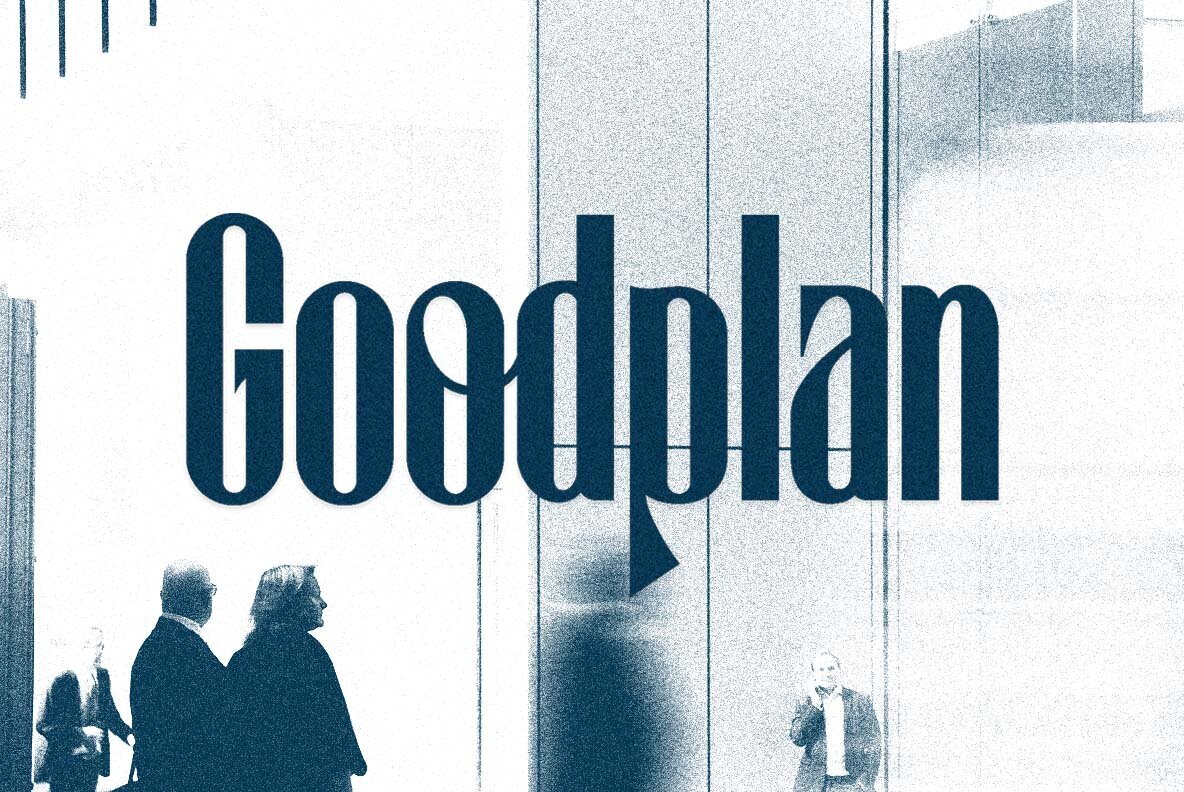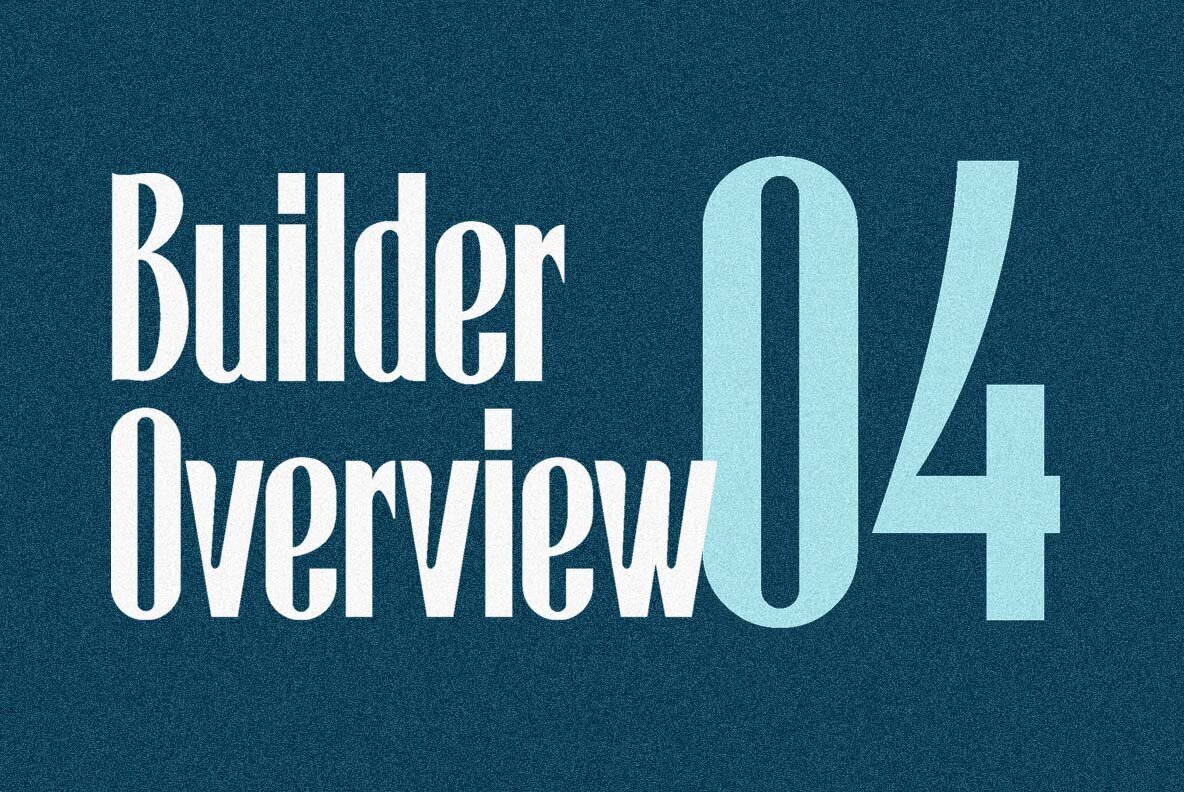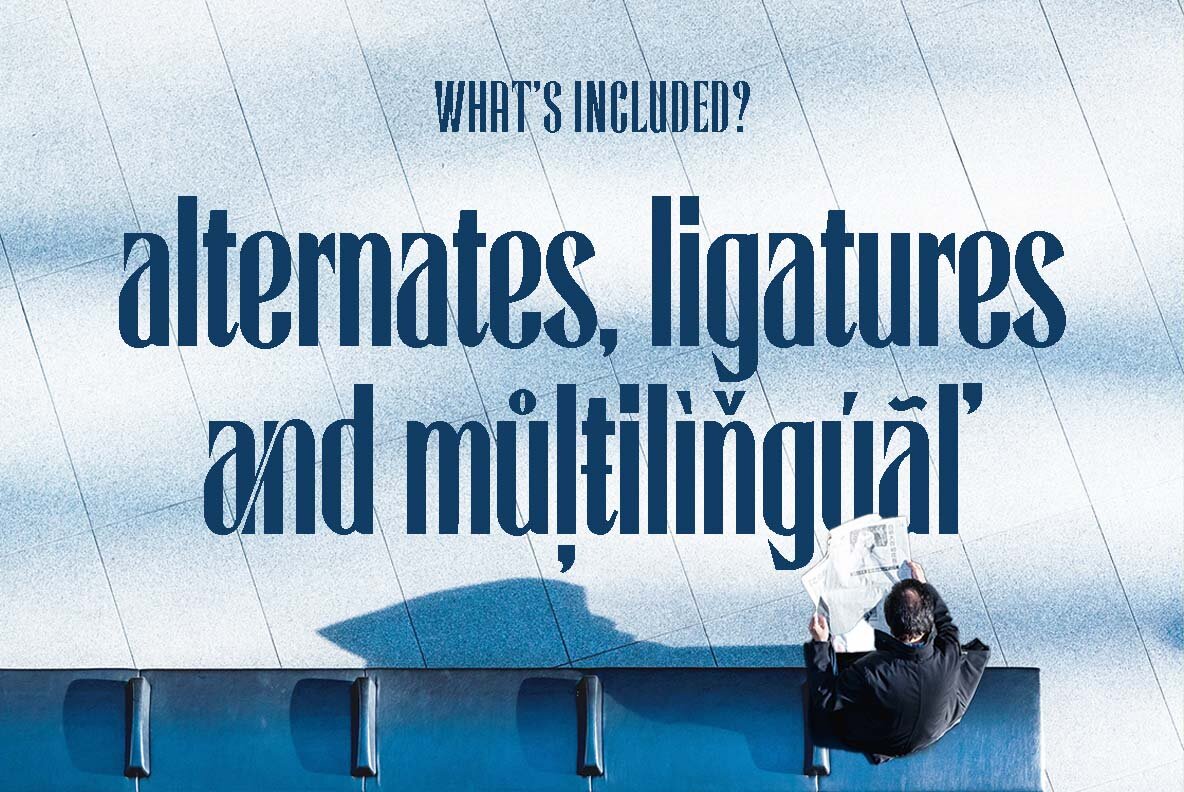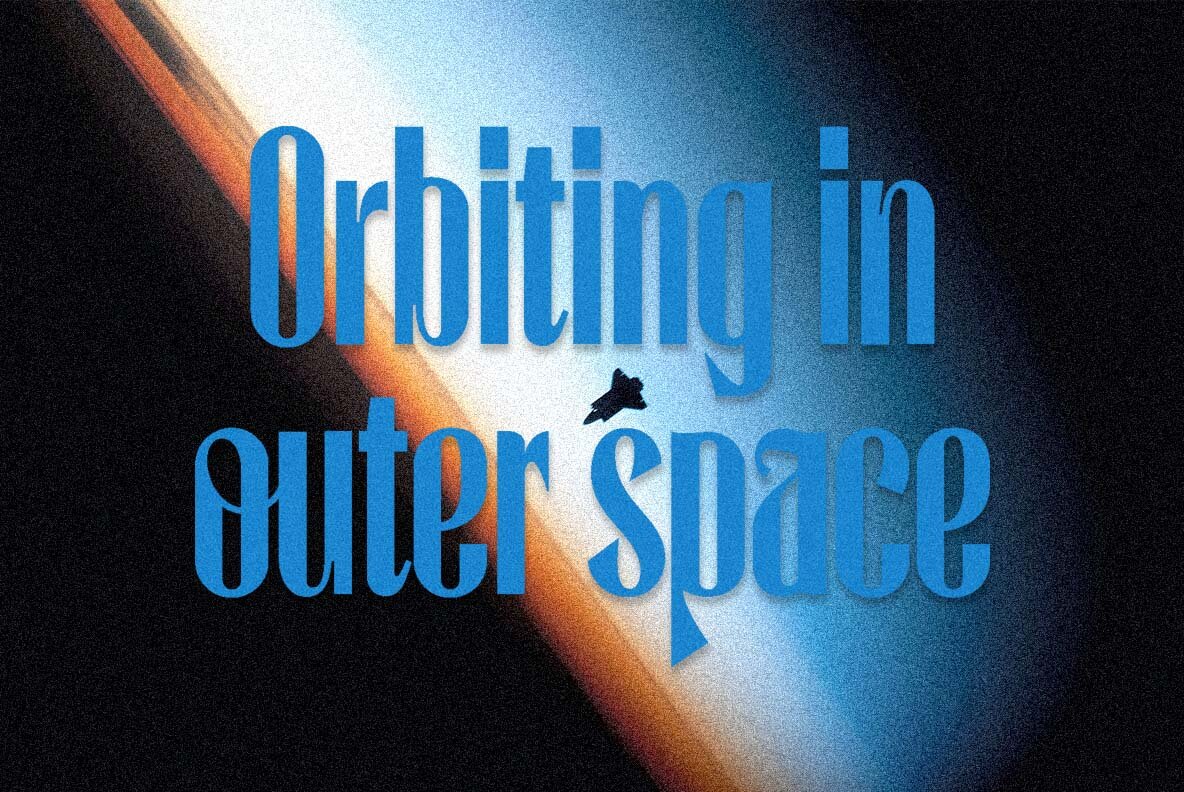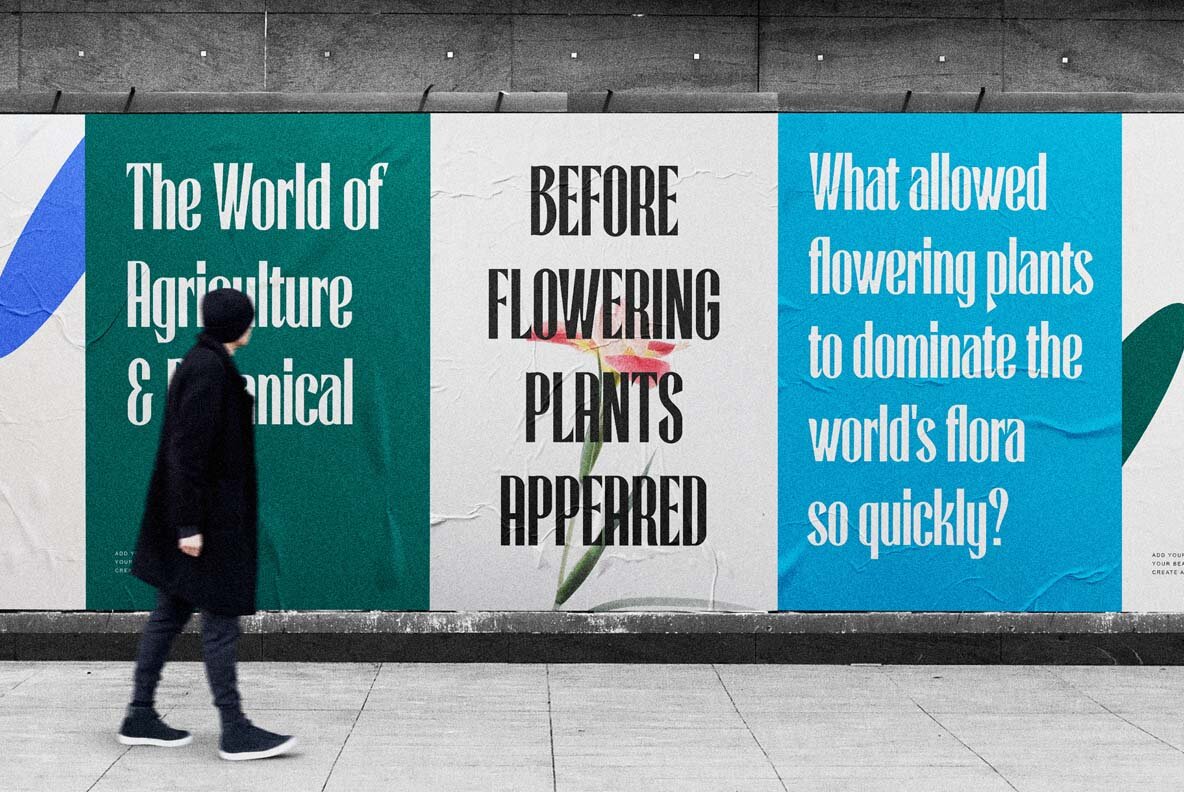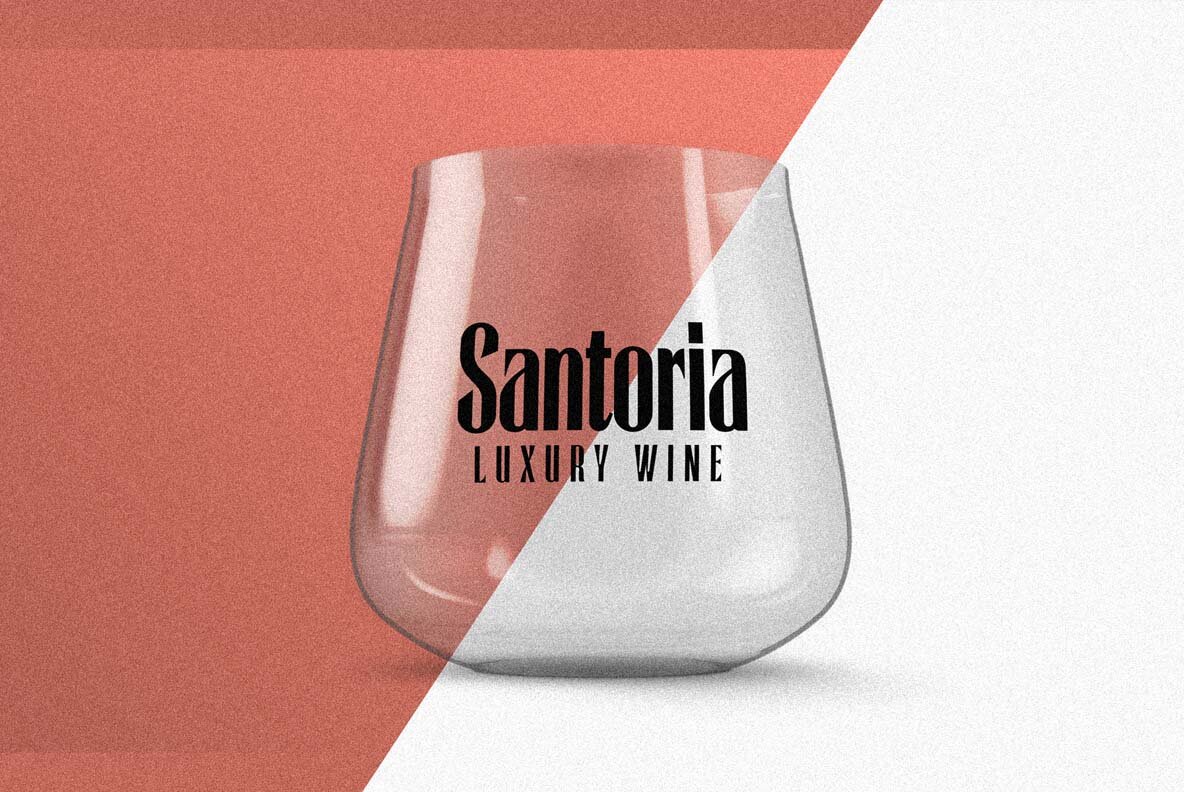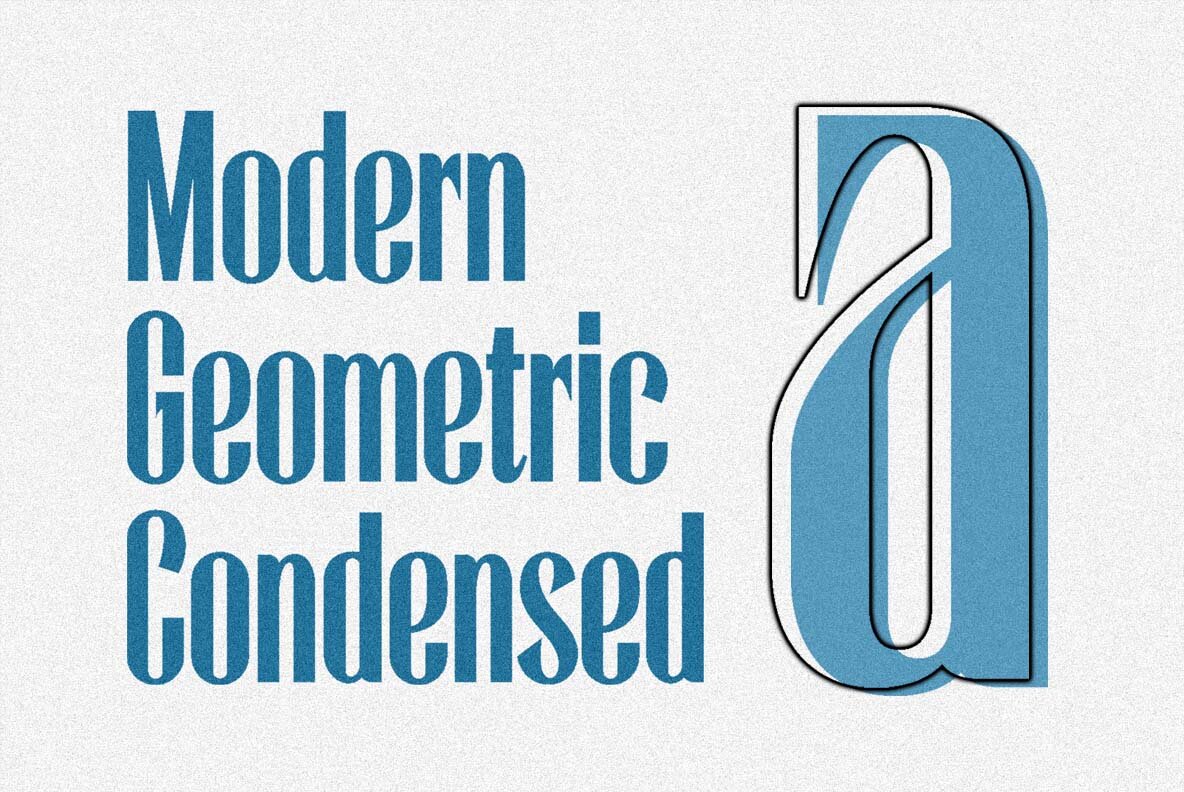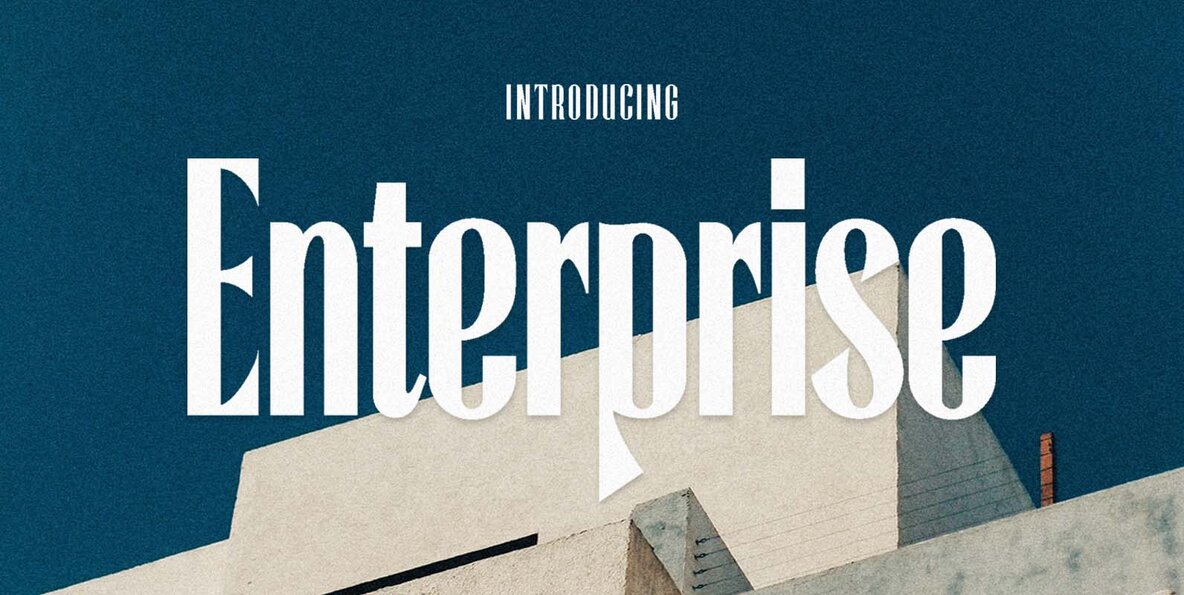
Enterprise Typeface Font
Enterprise Regular
The Enterprise Typeface embodies a distinctive blend of strength and sophistication, poised to elevate any design project with its classic allure. Crafted with tall, slender letterforms, this typeface making an indelible mark, effortlessly distinguishing your work in a sea of creativity. Its modern appeal, coupled with a touch of tradition, offers a versatile option that fits seamlessly into diverse design contexts. Features:Enterprise Typeface: Timeless Display Elegance